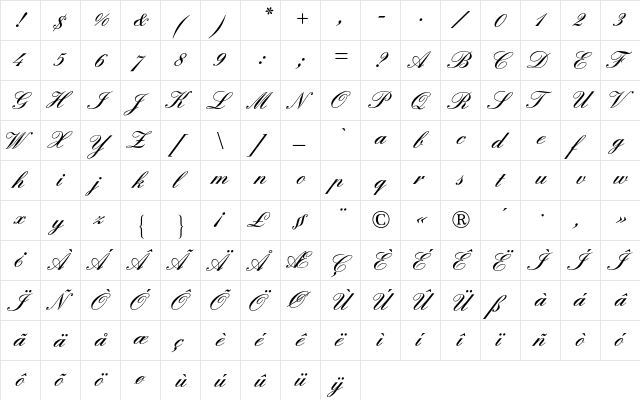
Englische Schreibschrift BQ Regular
Englische Schreibschrift BQ is a composed and adaptable typeface that performs quietly and consistently across a wide range of design contexts.